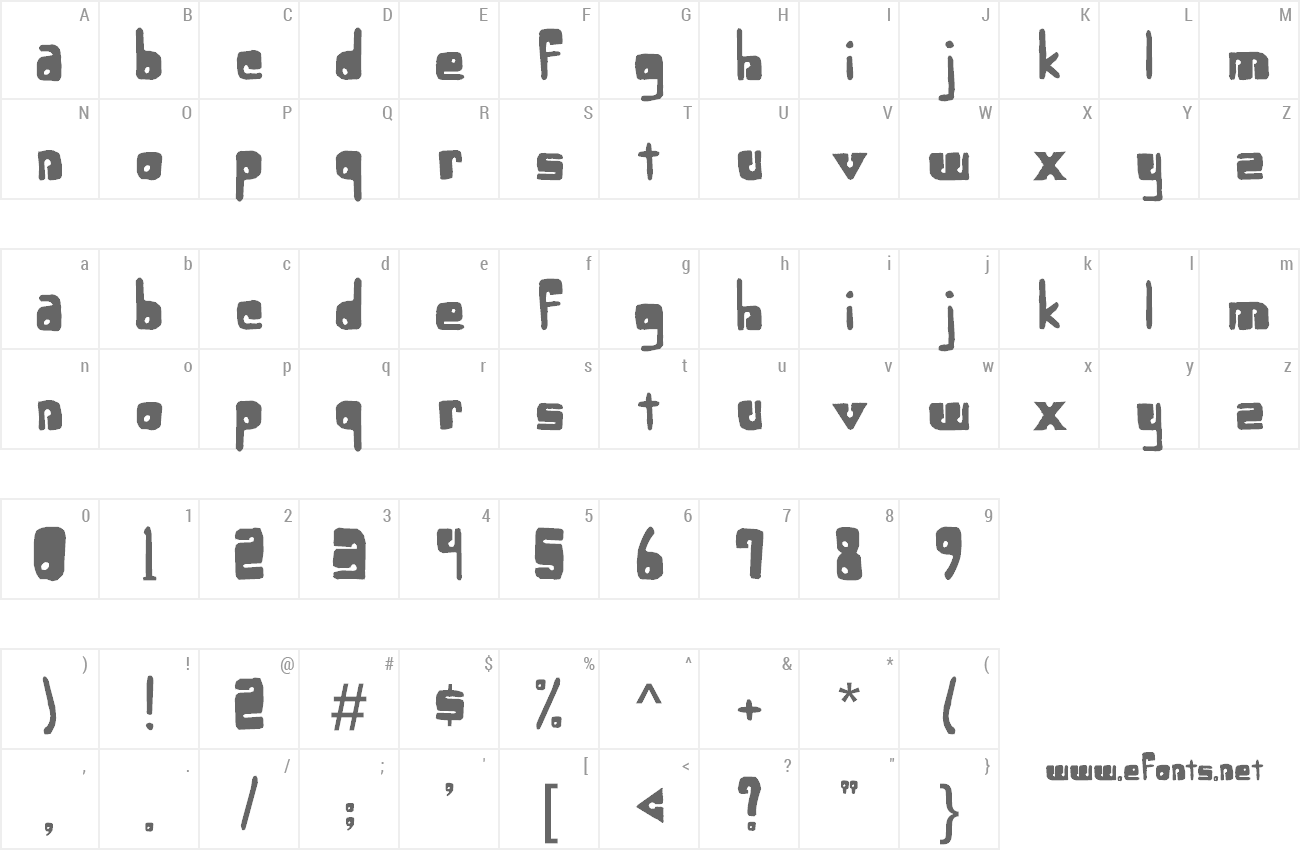
| Font name: | Lower-Optic Fibercase |
| Author: | Ekloff Design |
| Note by Ekloff Design | |
| This playful font is thick with small counter holes. All text is lowercase. |